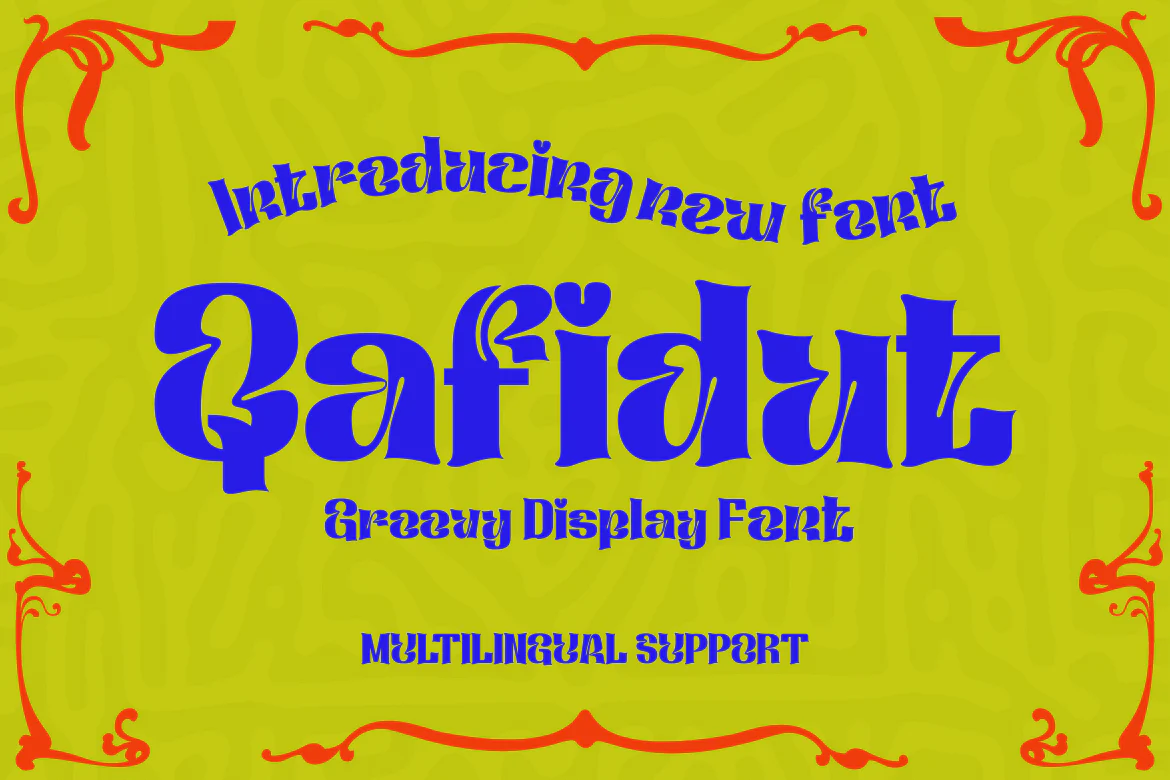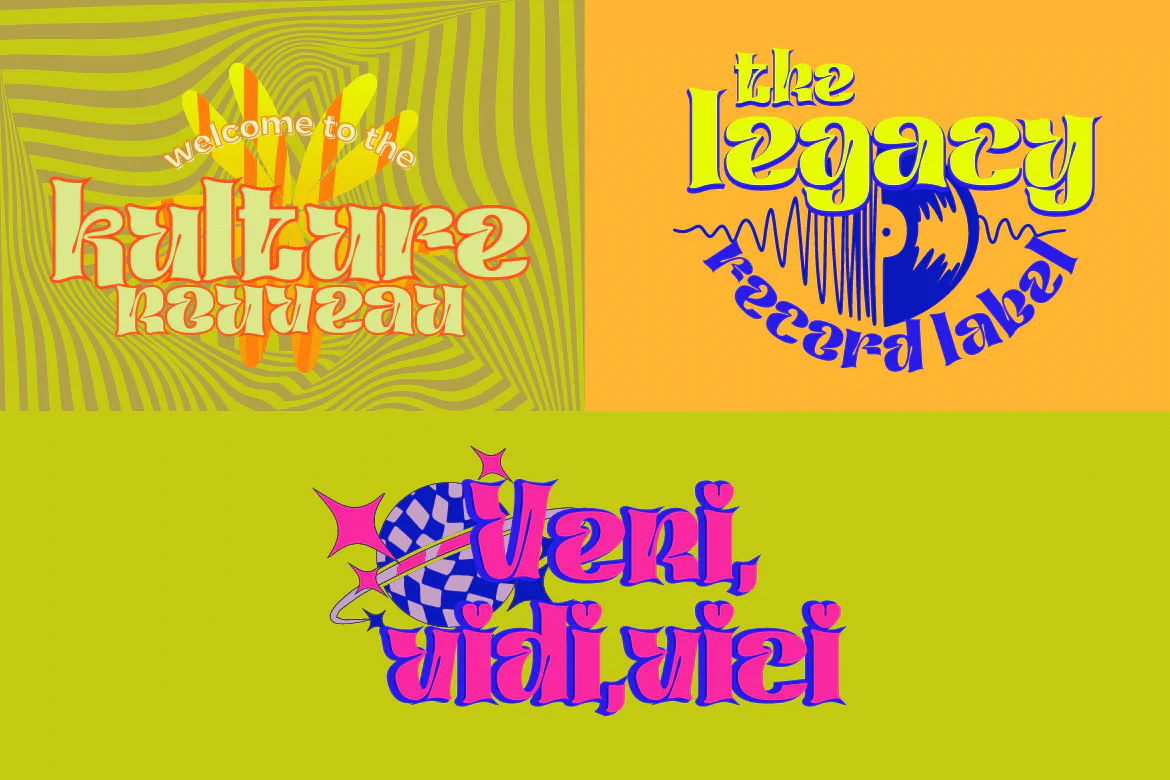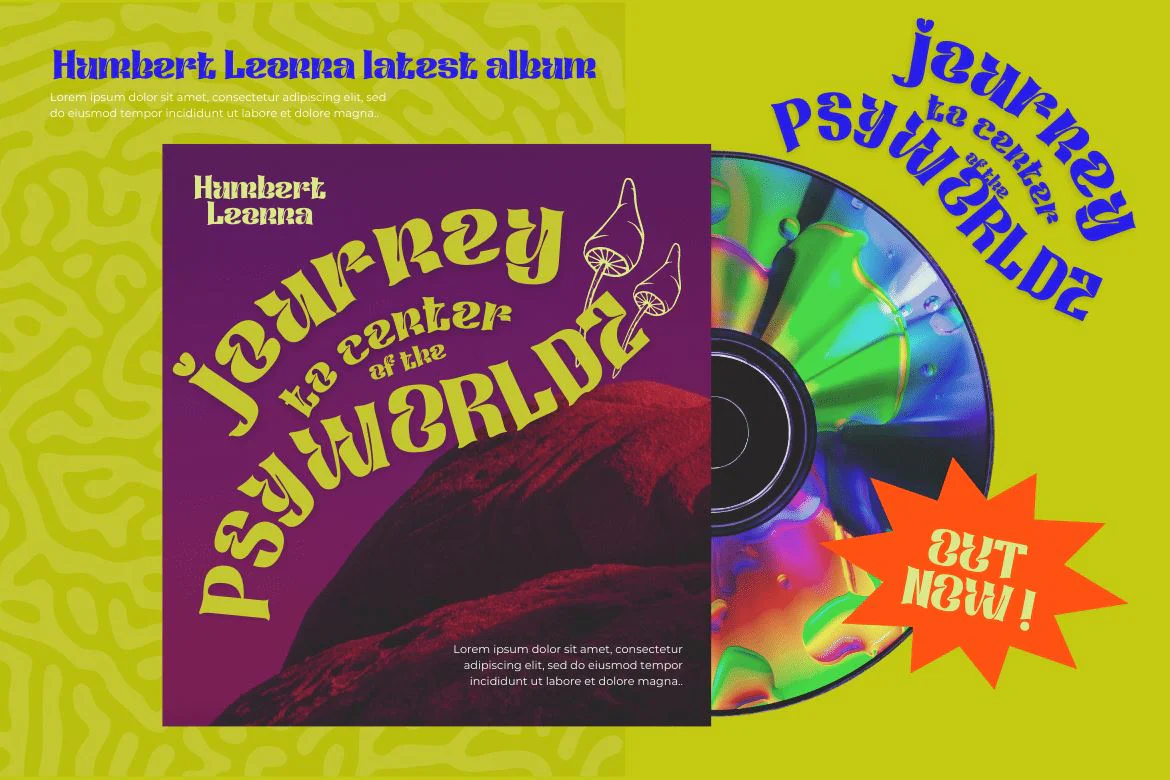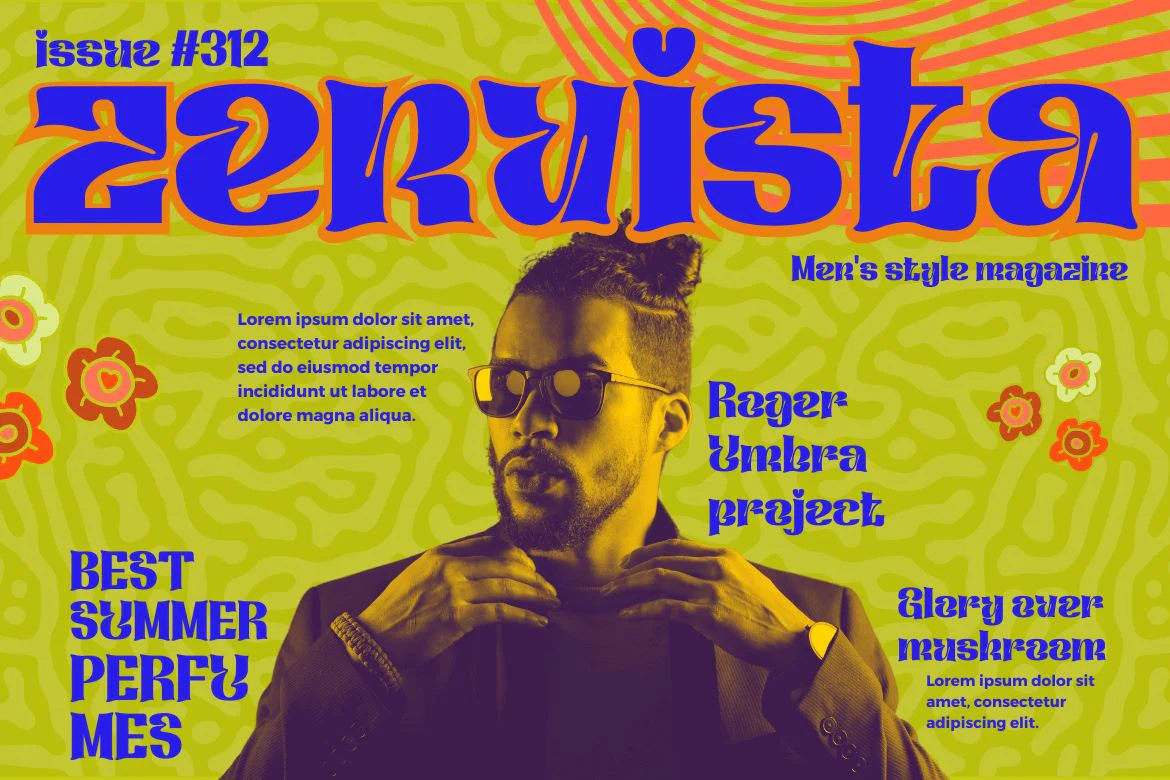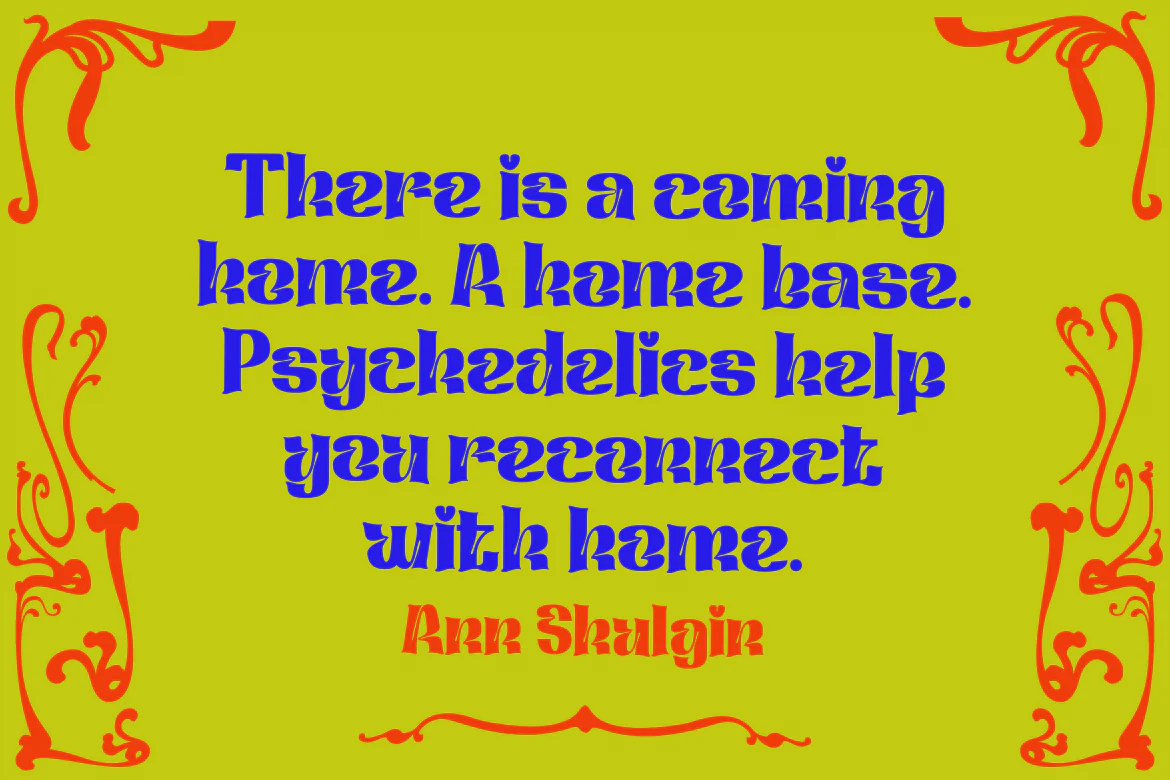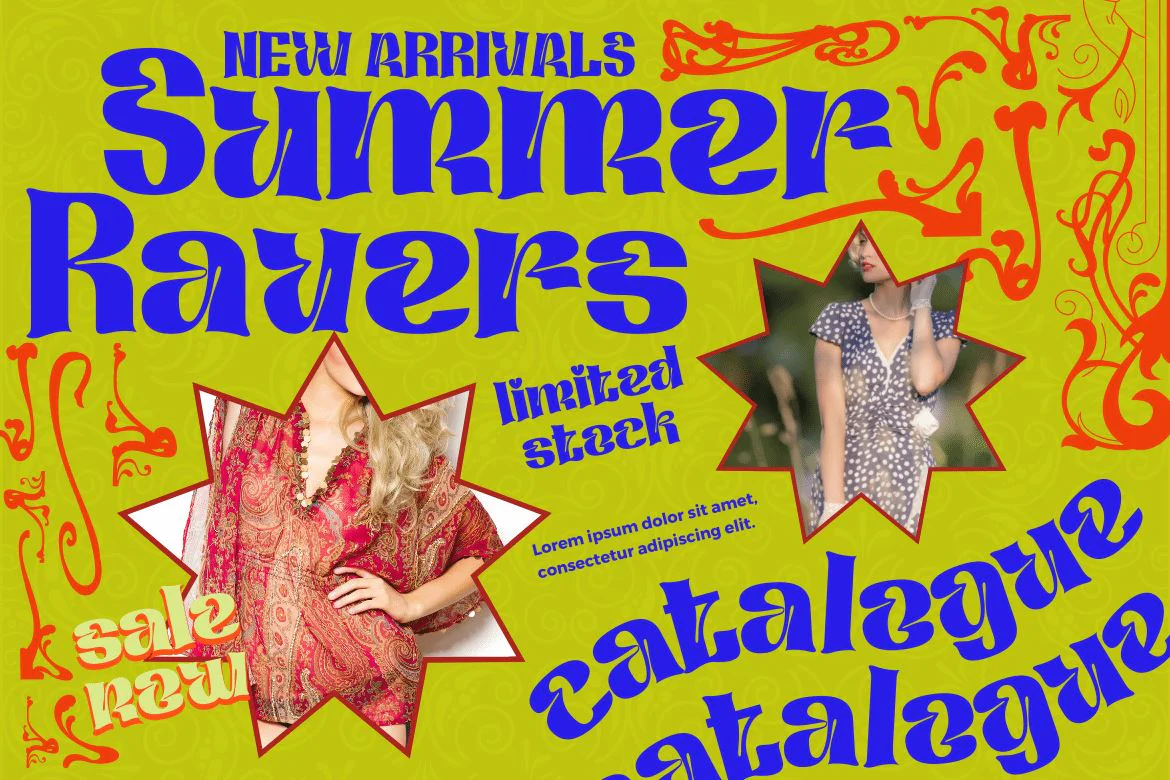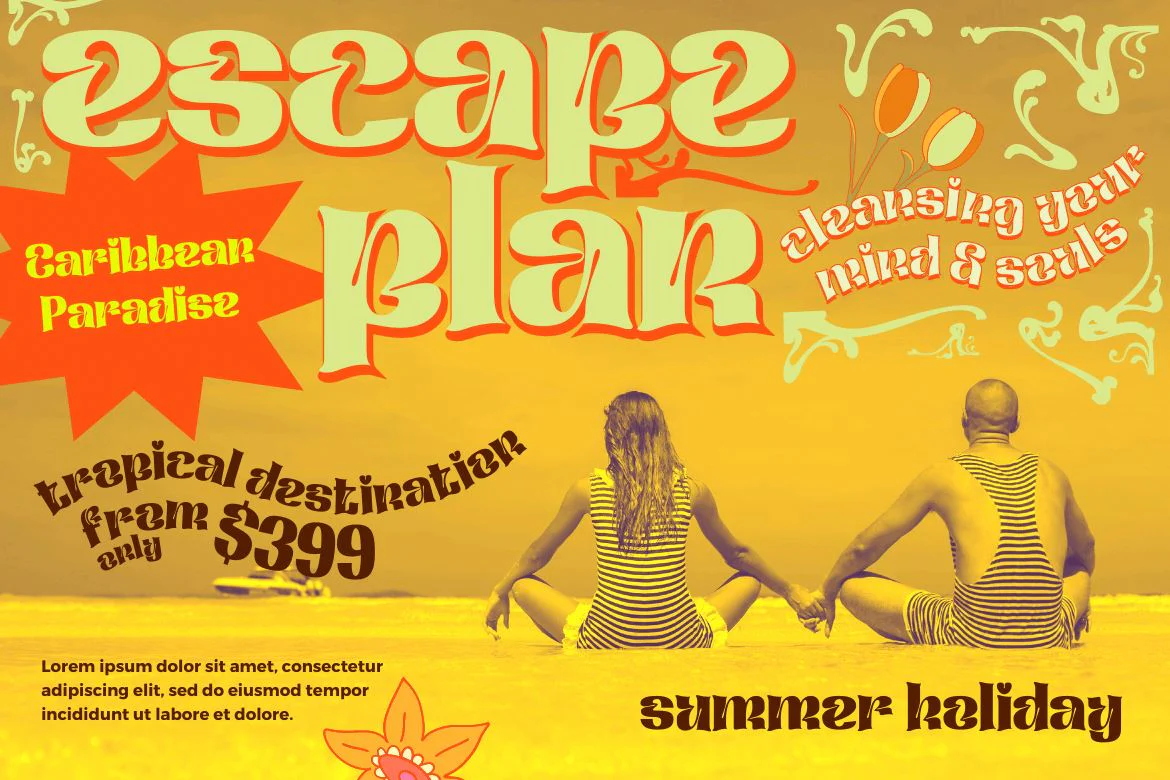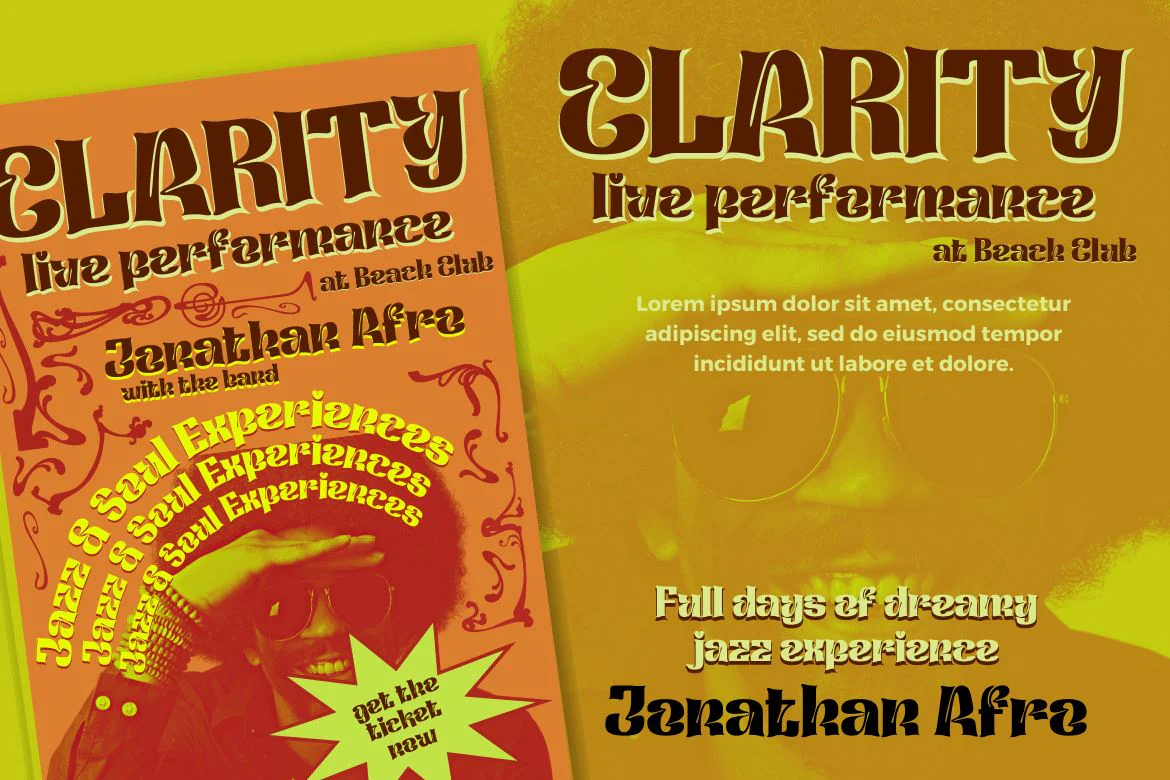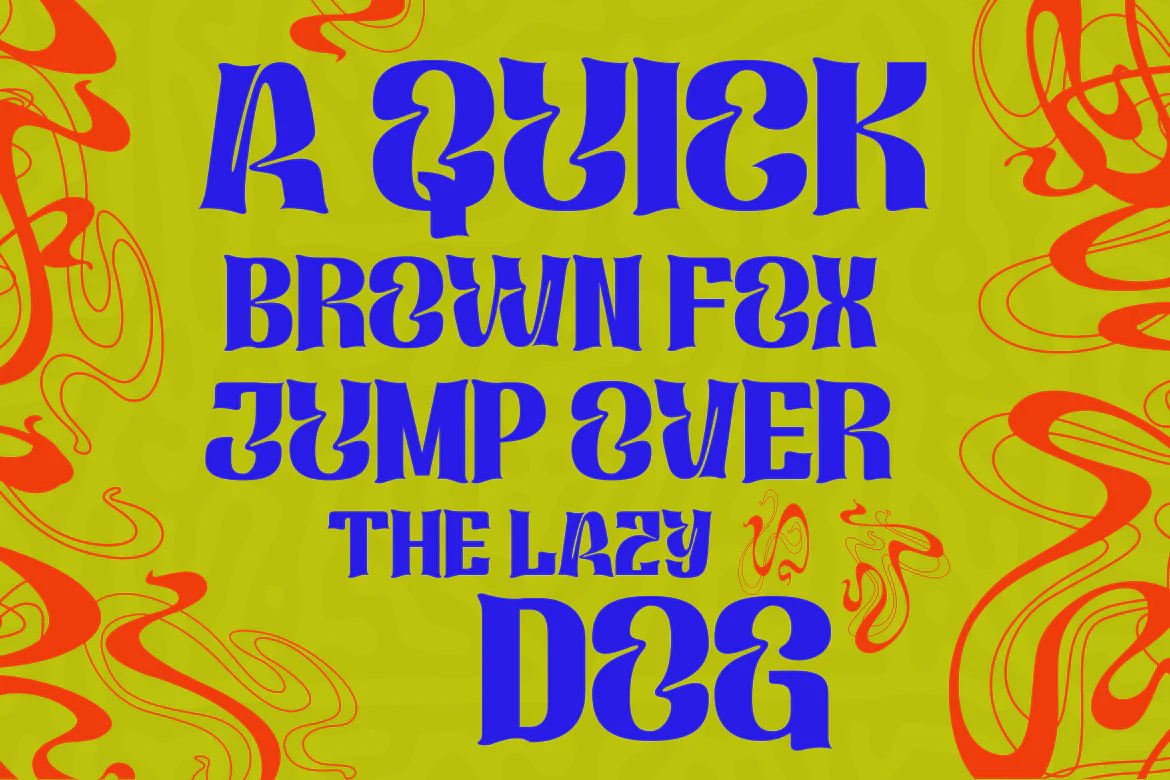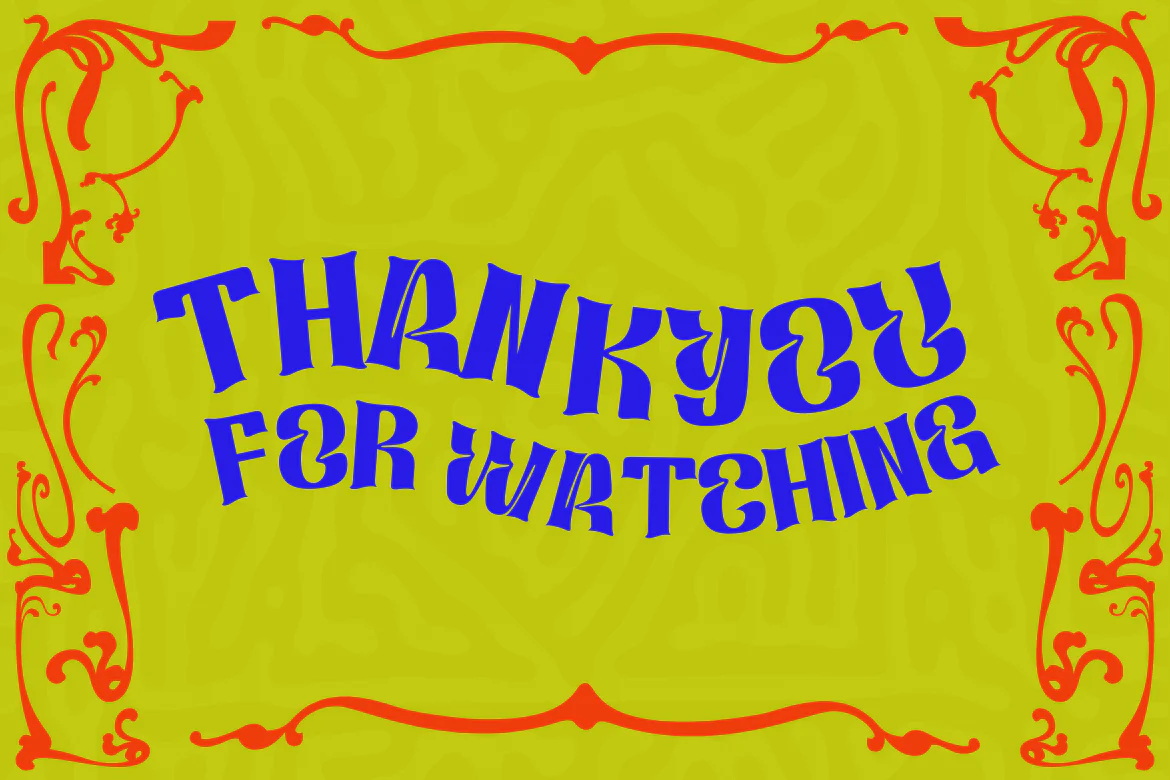
Qafidut | Groovy Retro Font
Qafidut Groovy is a psychedelic-inspired retro typeface with a bold and playful character. It’s ideal for branding, product packaging, or even just to add a little flair to your editorial work. This elegant typography has a simple and contemporary look but with a touch of beautiful simplicity to give a modern feel to every curve of the letter.